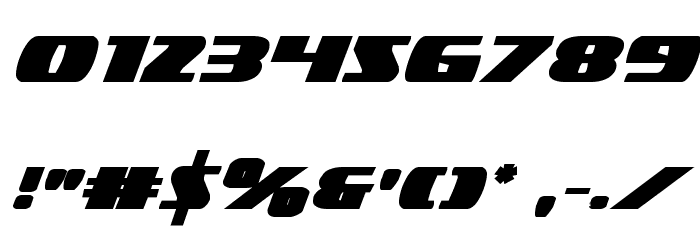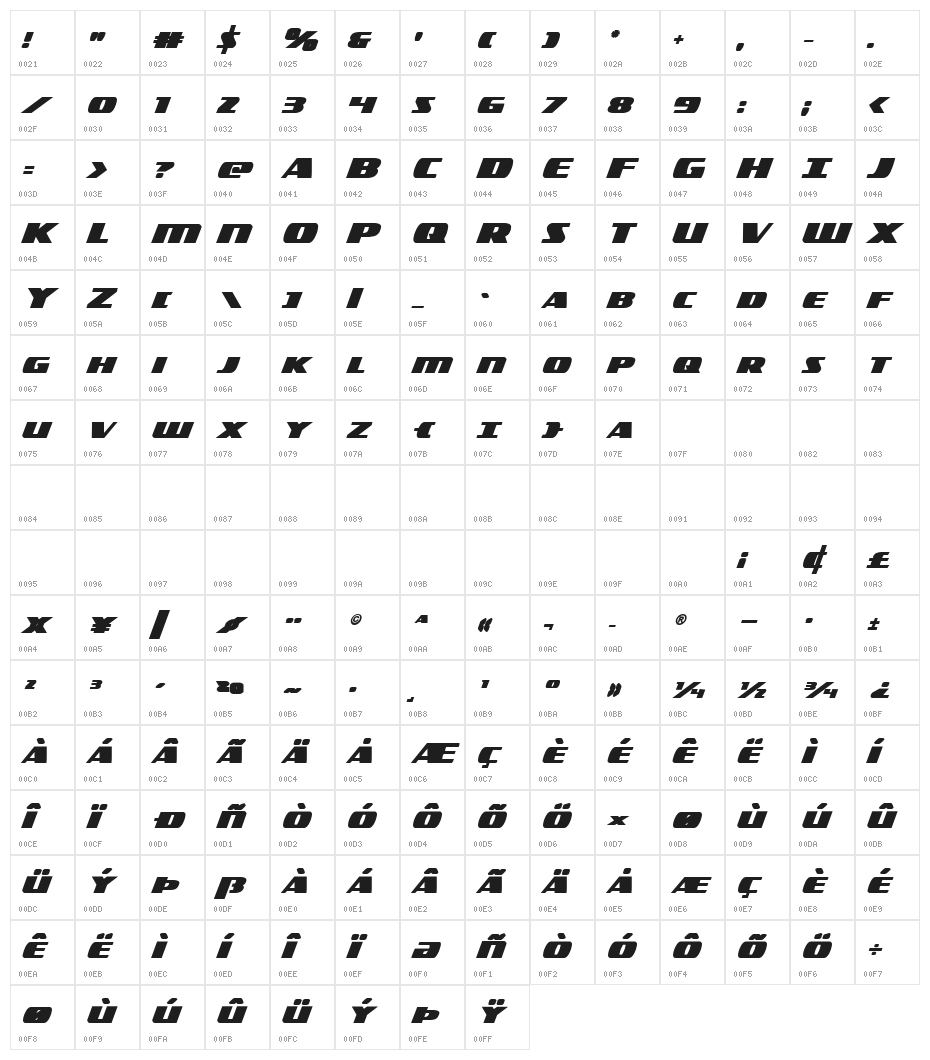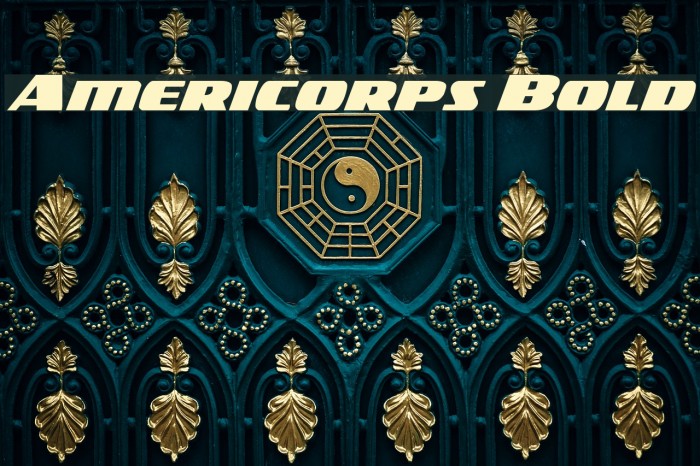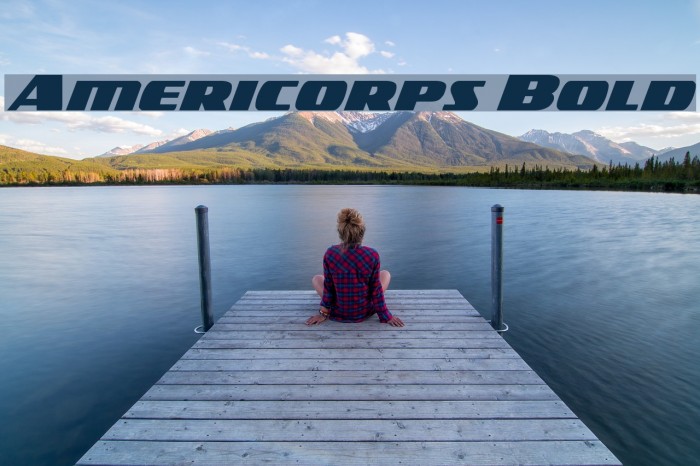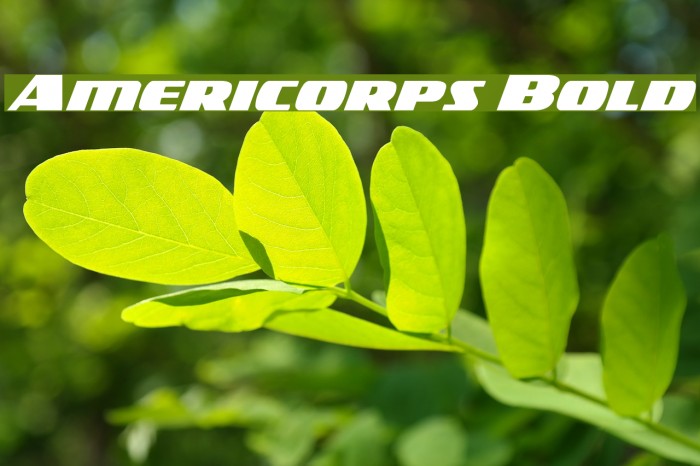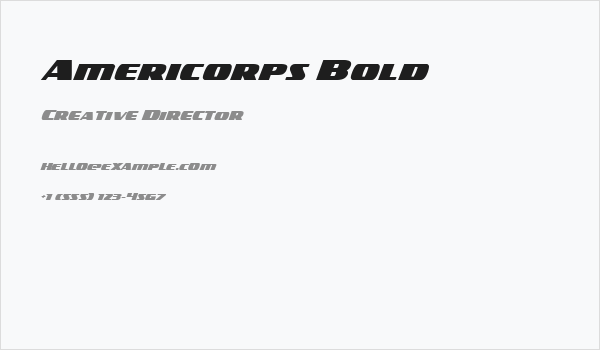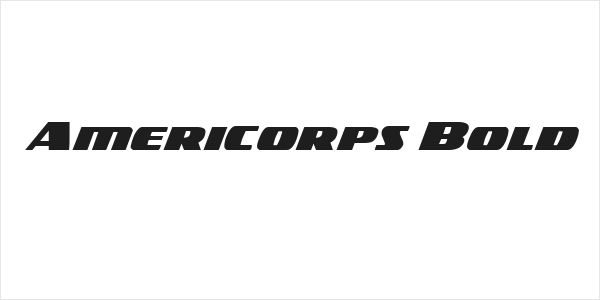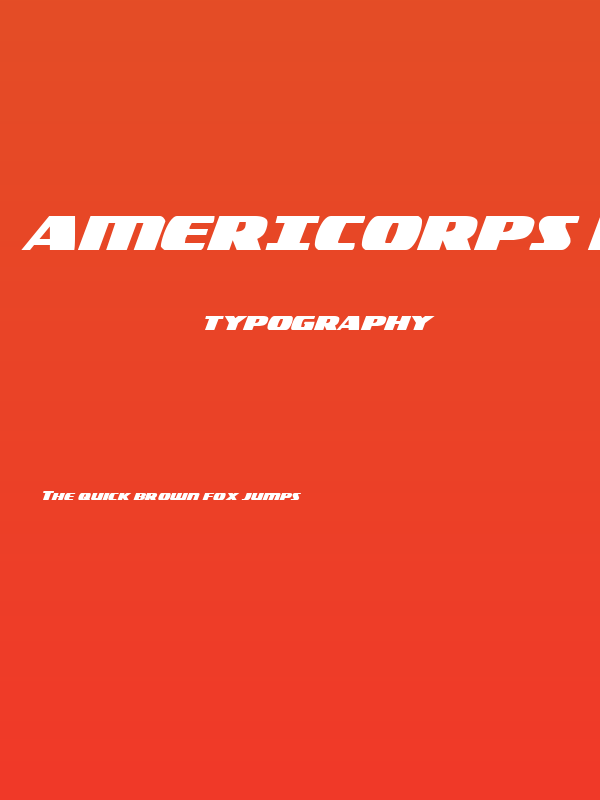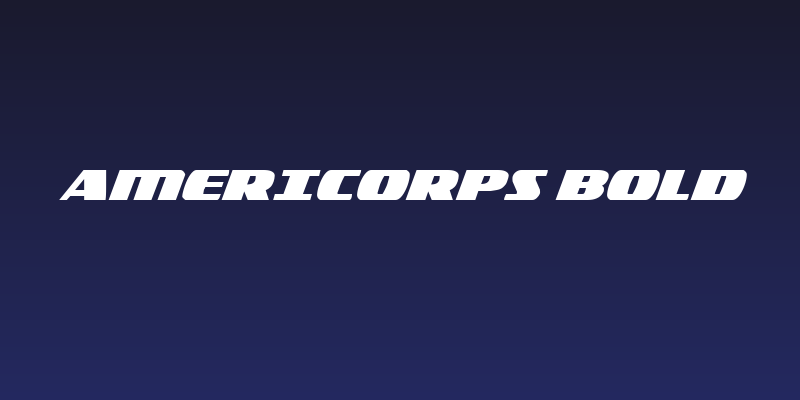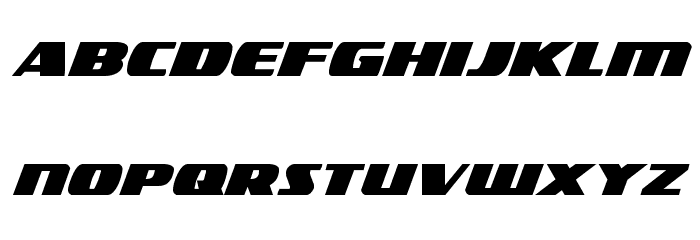
Americorps Bold Font
Americorps Bold Description
This font features a bold and dynamic design with a strong, impactful presence. The characters are slightly slanted, giving a sense of motion and energy. The strokes are thick and consistent, providing a uniform appearance across all letters and numbers. The overall style is modern and assertive, making it suitable for attention-grabbing headlines and logos. The uppercase and lowercase letters maintain a cohesive look, while the numerals are clear and bold. Special characters are included, matching the robust style of the alphabet.
| Proposed Projects | Ideal for sports branding, dynamic posters, and modern advertising campaigns. |